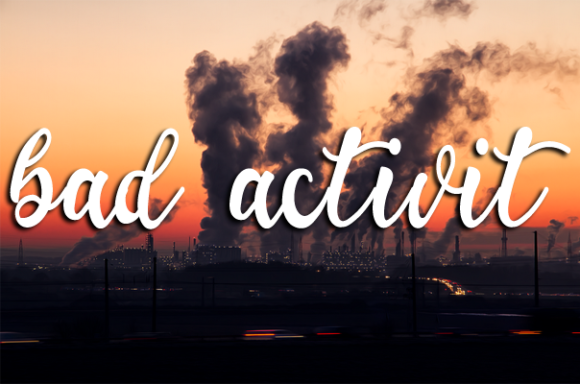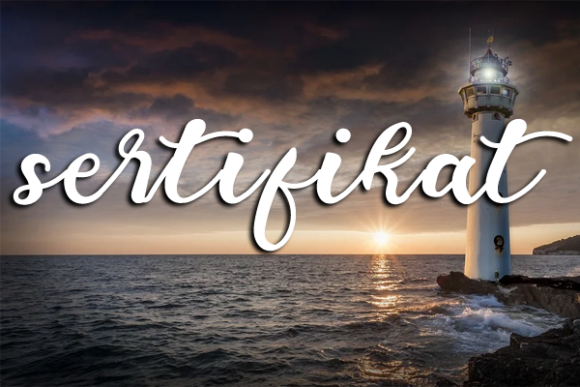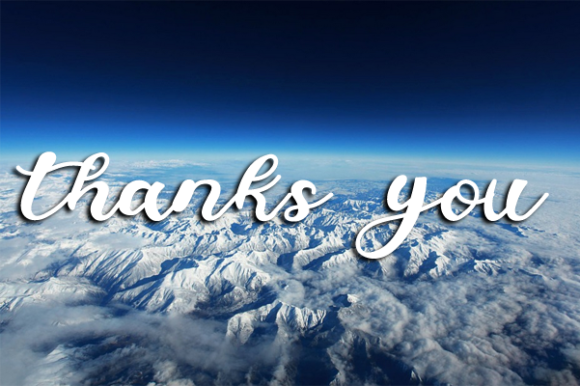
About Jhonatang Font
Jhonatang is a ravishing handwritten font. This versatile script font has a wide spectrum of applications ranging from greeting cards to headlines and is guaranteed to add a romantic feel to your next project.